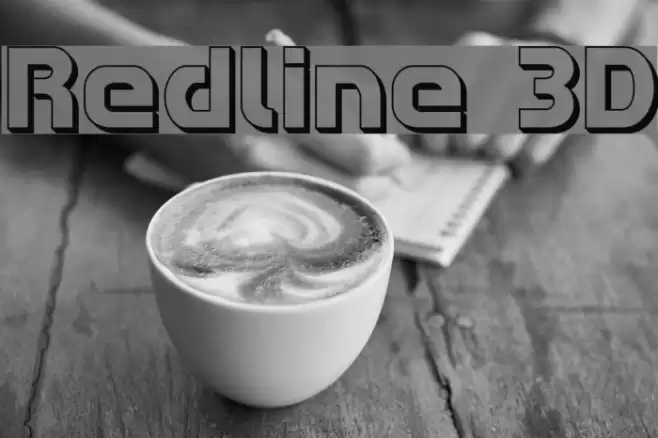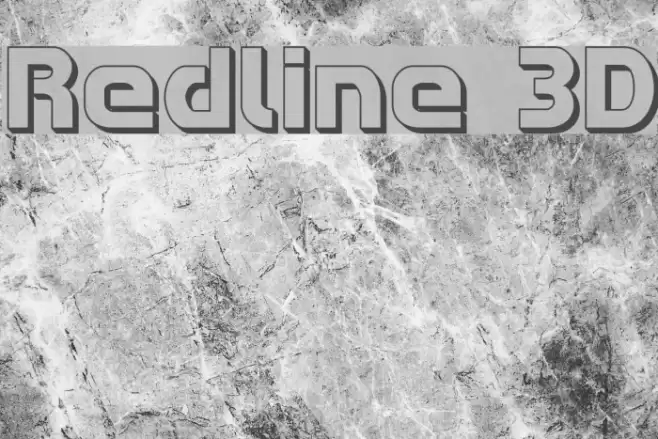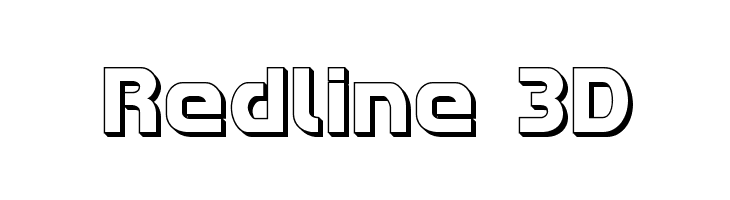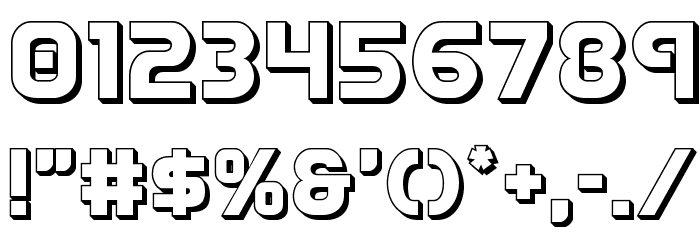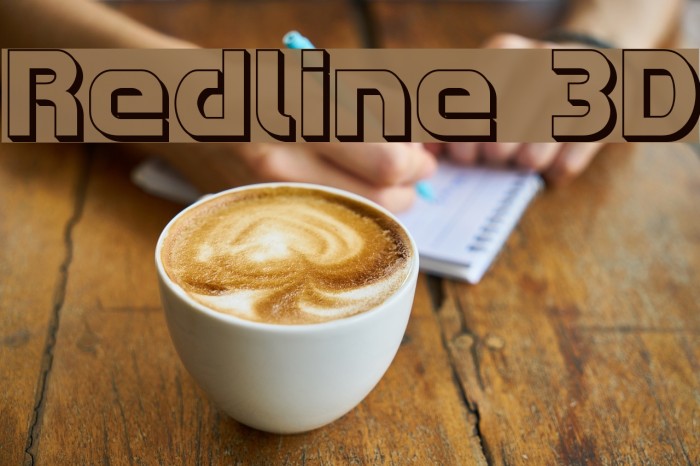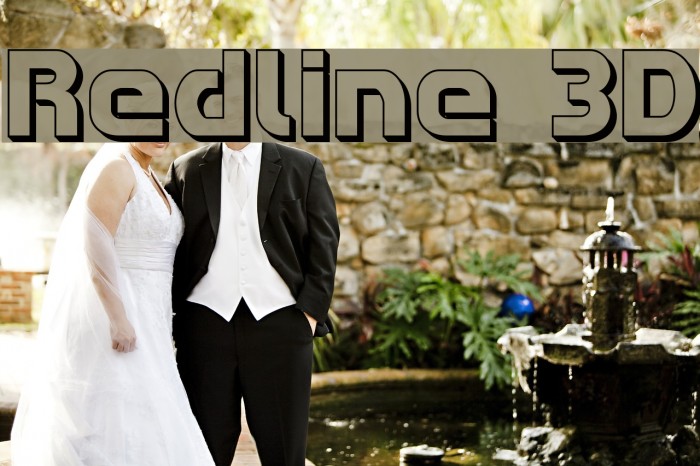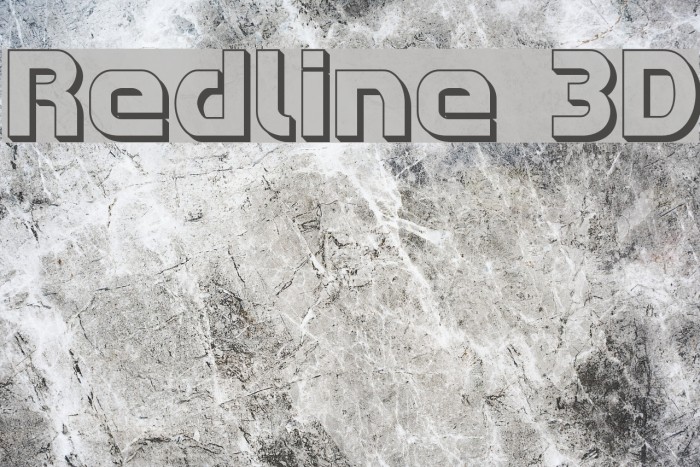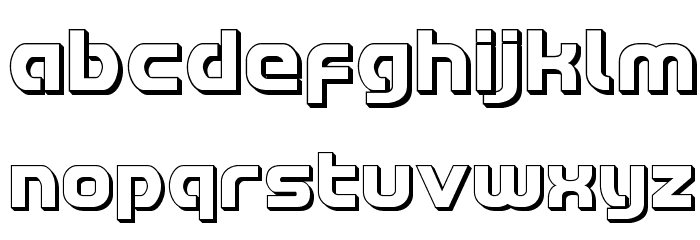
Redline 3D Font
Redline 3D Description
This font features a bold, three-dimensional effect with a strong outline that gives each character a distinct, impactful appearance. The geometric shapes and clean lines create a modern and futuristic feel, making it ideal for projects that require a standout visual element. The uppercase and lowercase letters maintain a consistent style, with rounded edges that soften the overall look. Numbers and special characters are designed to match the boldness and clarity of the alphabet, ensuring uniformity across all text elements.
A bold, 3D geometric font with strong outlines and a modern feel from Sci-fi fonts.
- Proposed Projects: Ideal for branding, posters, video game graphics, and any project needing a futuristic or tech-inspired aesthetic.